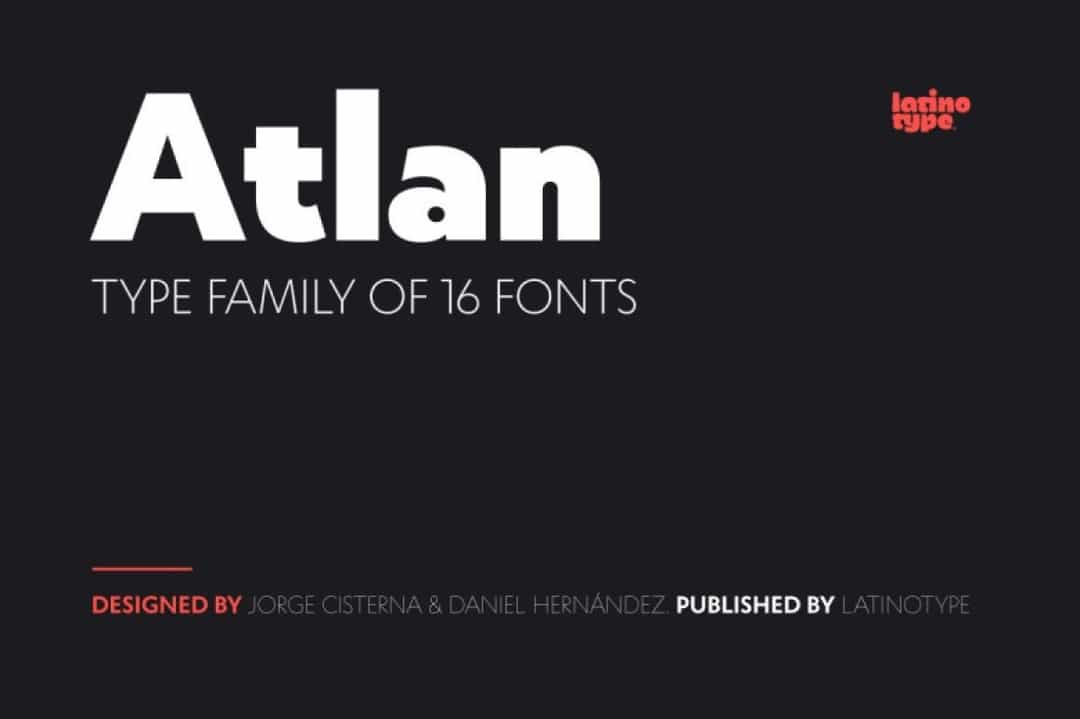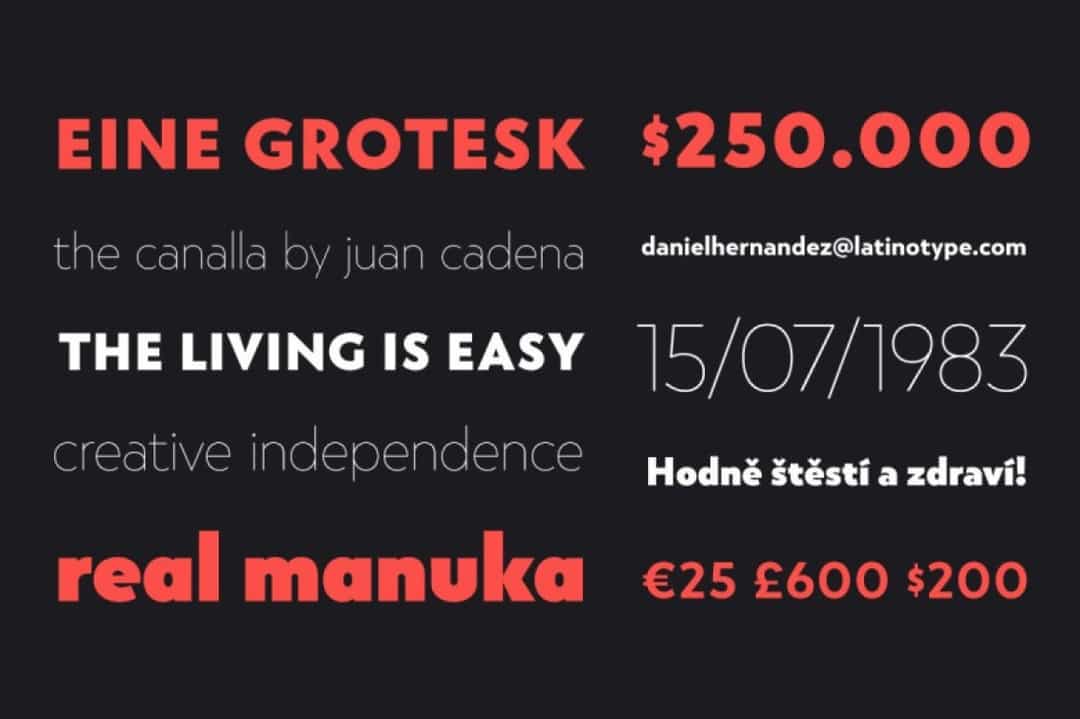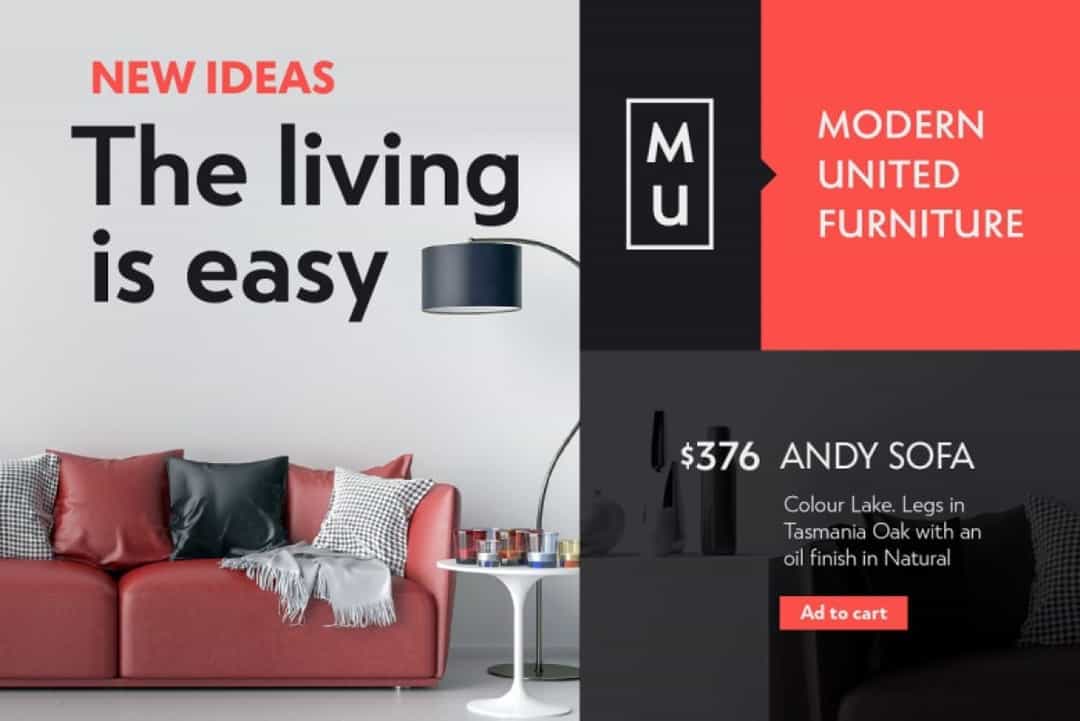
Atlan is a Latin “spin-off” of classical geometric sanstypefaces. Inspired by Rudolf Koch’s Kabel typeface while considering modern design trends, Atlan was created – creating an appealing font based on highly expressive geometric sansserif fonts from 1920s.